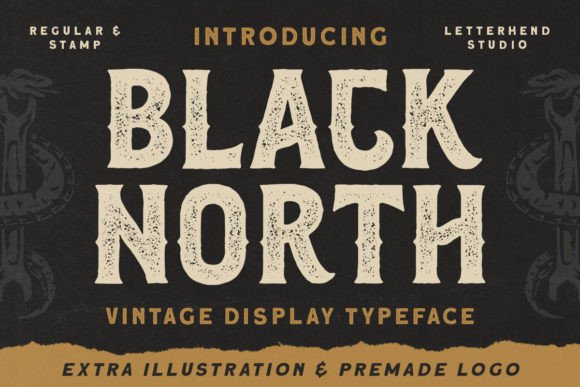
The Retro Revival: How Black North Font Became My Go-To for Vintage Vibes
I’ll never forget the design project that led me to Black North Font. I was working on a branding campaign for a craft brewery, and I needed a font that would evoke a sense of nostalgia and playfulness. I’d scoured the usual font sites, but nothing seemed quite right. That was when I stumbled upon Black North, and it was love at first sight! ✨
This stylish display font has a way of delivering an incredible vintage aesthetic that’s hard to find elsewhere. Its unique blend of classic and modern elements makes it perfect for adding a retro touch to any design idea. In this article, I’ll share my experience with Black North, including what I love about it, some practical tips on how to use it, and a few similar fonts you might enjoy.
What I Love About Black North Font
- ✨ Unique vintage vibe: Black North has a distinct retro feel that’s perfect for designs that need a touch of nostalgia.
- ✅ Highly legible: Despite its ornate design, Black North is surprisingly easy to read, even at smaller sizes.
- 🎨 Versatile: This font can be used for a wide range of design projects, from posters and logos to packaging and branding.
While Black North is an amazing font, it’s not perfect. Here are a few things to keep in mind:
- 🤔 Limited use cases for body text: While Black North is great for headlines and titles, it’s not ideal for longer blocks of text.
- ⚠️ Some glyphs may require manual adjustment: Depending on your design, you may need to tweak certain glyphs to get the best results.
- Experiment with OpenType features, like stylistic alternates and glyphs, to add visual interest.
- Explore the OpenType panel to access stylistic alternates, glyphs, and other advanced features.
The Story Behind Black North Font
While the origins of Black North Font are shrouded in mystery, it’s clear that its designer was inspired by the classic typography of the past. Imagine a vintage sign painter, armed with a brush and a keen eye for detail, creating a font that’s both nostalgic and modern. That’s the spirit of Black North.
Q: What type of designs is Black North best suited for?
A: Black North is perfect for designs that need a vintage or retro touch, such as branding, packaging, posters, and logos.
Q: Can I use Black North for body text?
A: While Black North is legible, it’s not ideal for longer blocks of text. Stick to headlines, titles, and short paragraphs for best results.
Q: Does Black North support OpenType features?
A: Yes, Black North supports OpenType features, including stylistic alternates and glyphs.